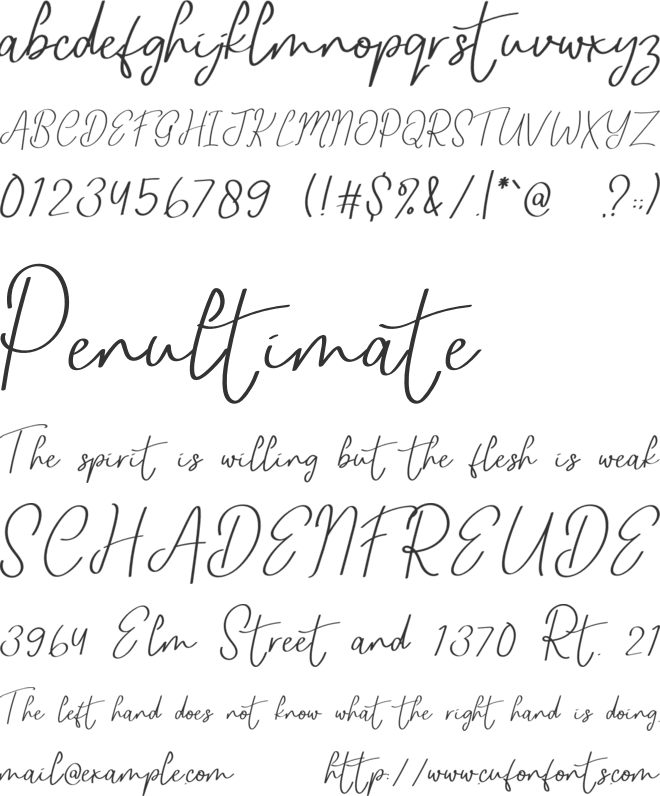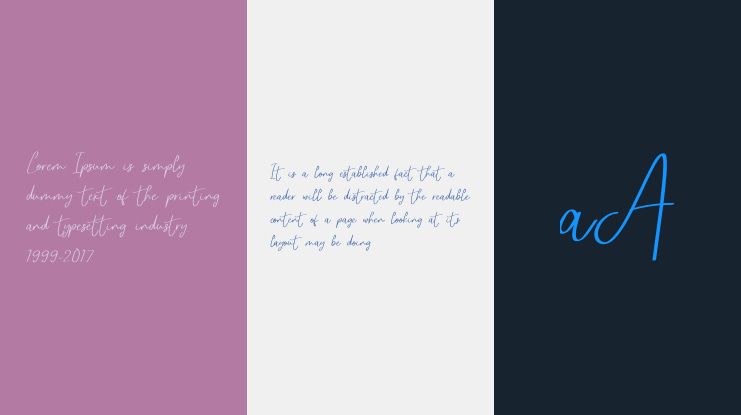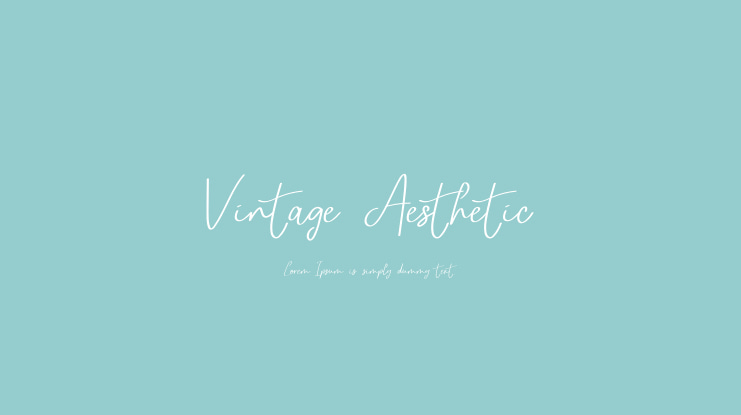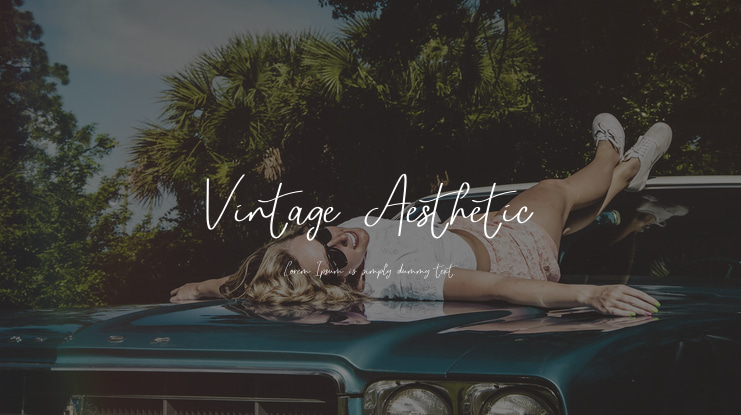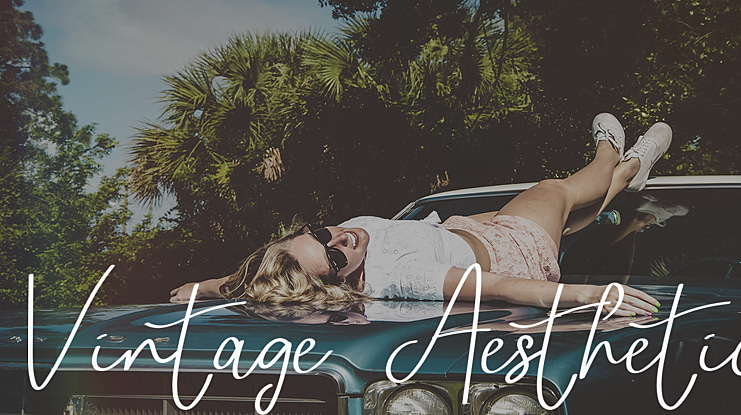
Vintage Aesthetic Font
Vintage Aesthetic is a fashionable and thin lettered script font. Whatever the topic, this font will be a wonderful asset to your font library, as it has the potential to enhance any creation.